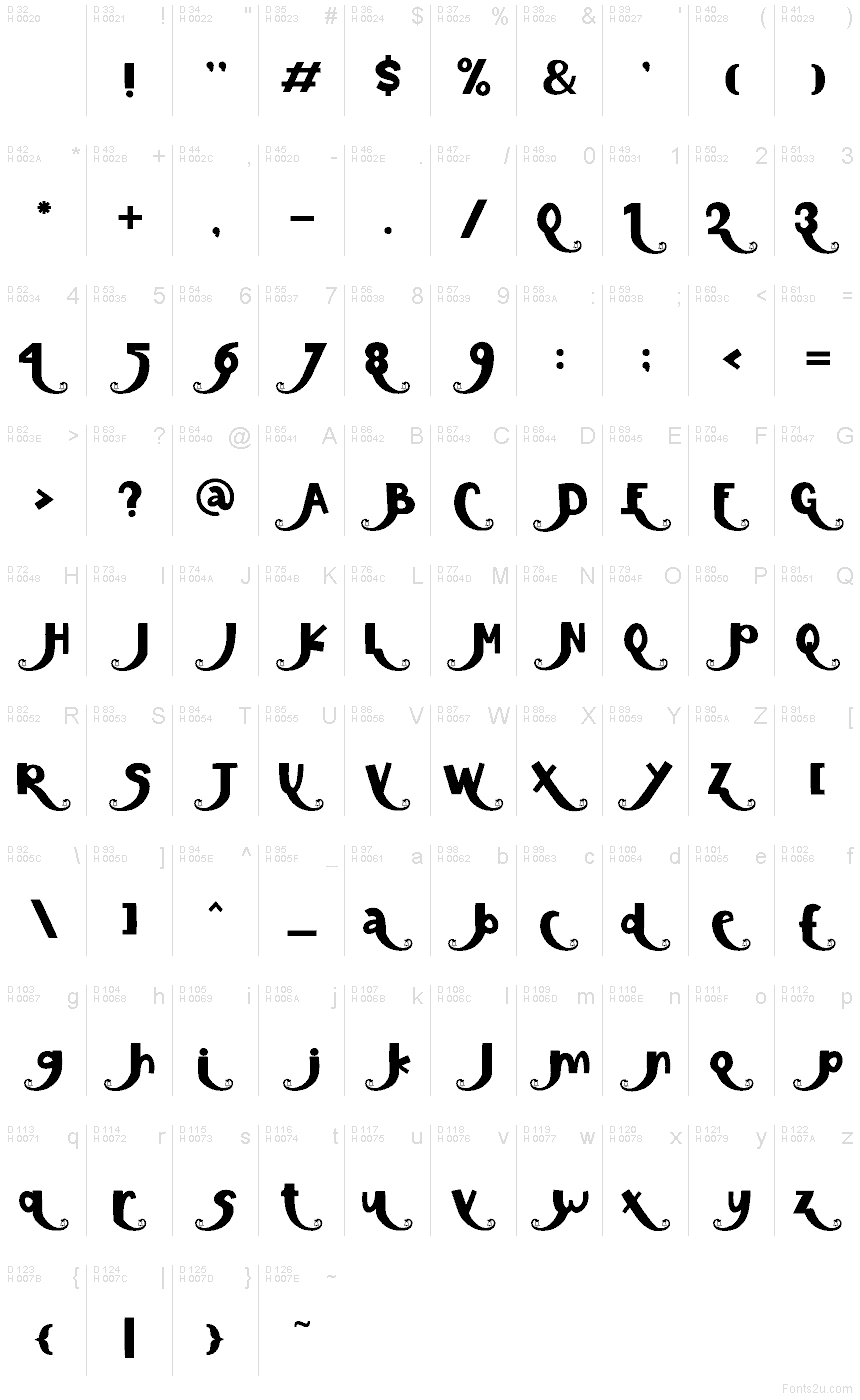
Frosty Faktur Bell
Frosty Faktur Bell font by PutraCetol Studio is a free holiday typeface that turns every word into a little piece of Christmas décor. Part of the Frosty Faktur family, its tall, slim letters curl into playful hooks and spirals, like ribbons on wrapped gifts or frost curling along a window. The strokes feel inky and hand-drawn, giving titles a cozy, storybook charm without ever becoming hard to read.
Using Frosty Faktur Bell, your Christmas cards, holiday party invitations, festive posters, advent calendars, seasonal branding, and social media graphics instantly gain a whimsical, “handmade with love” vibe. This free font shines at larger sizes where the curls have room to breathe; pair it with a clean sans serif for body text to keep layouts lively but balanced.